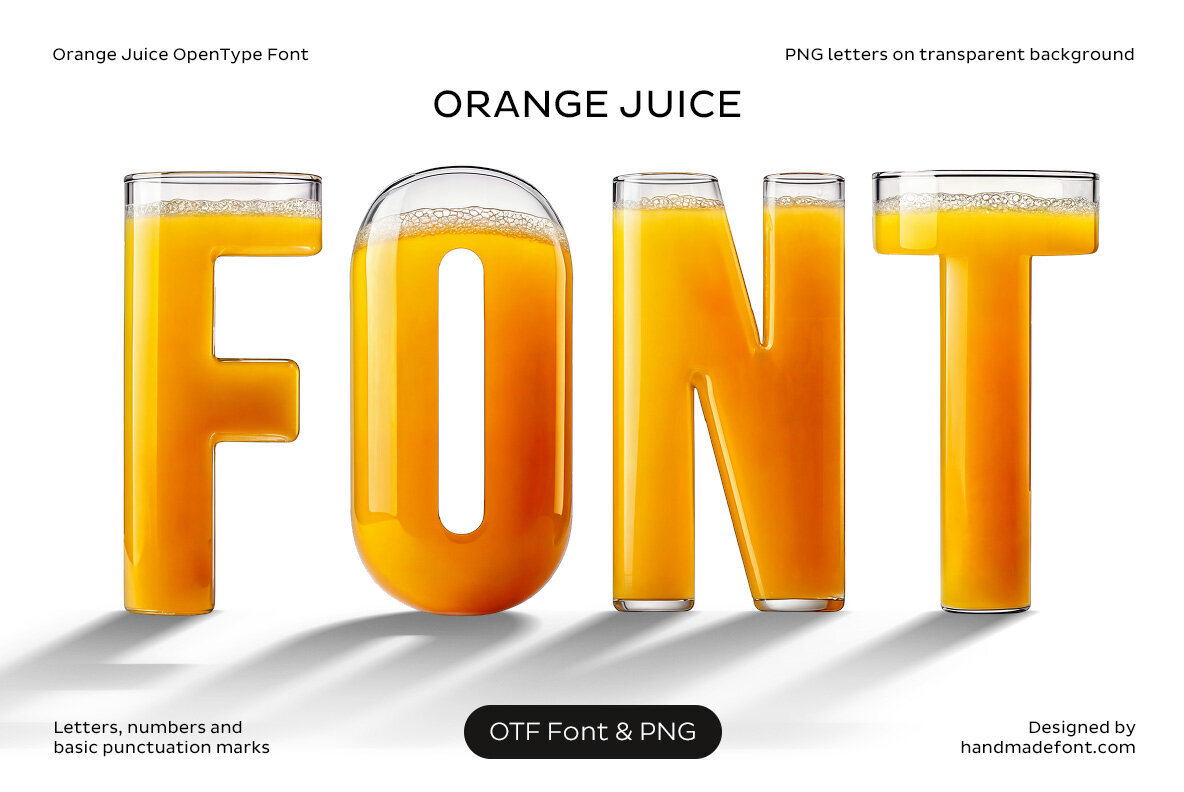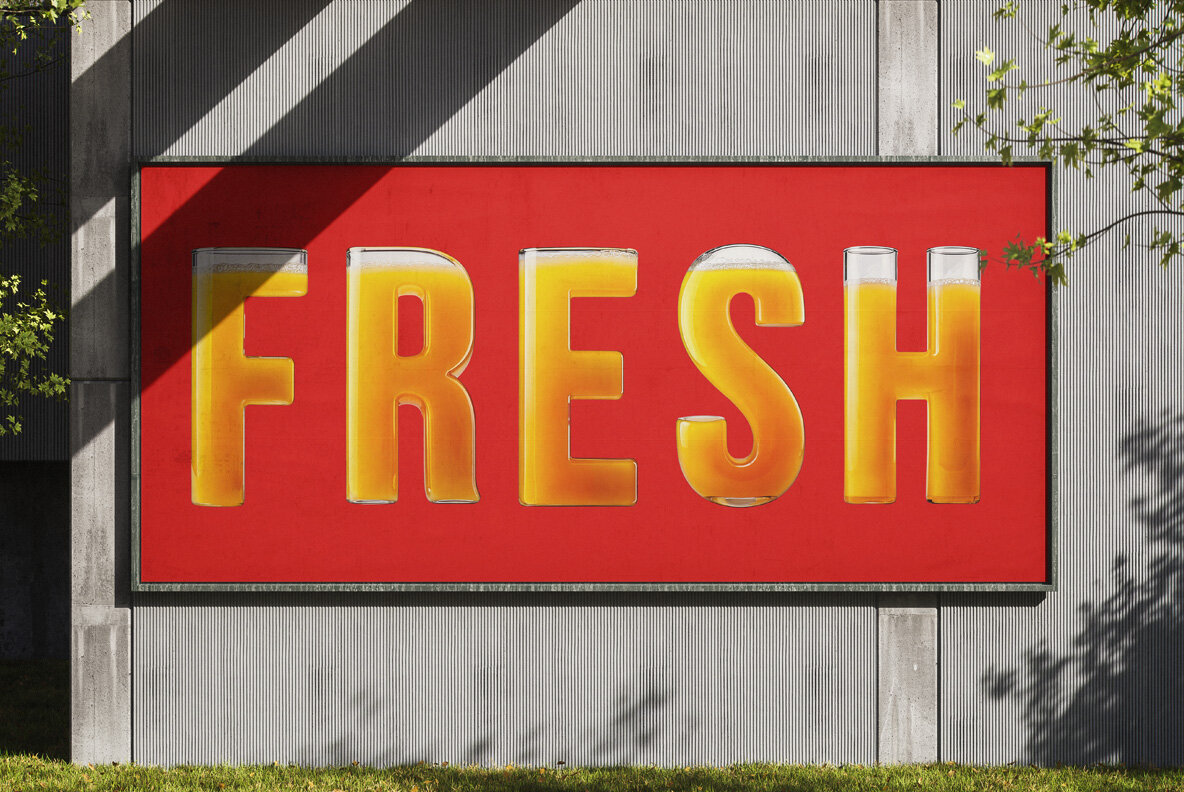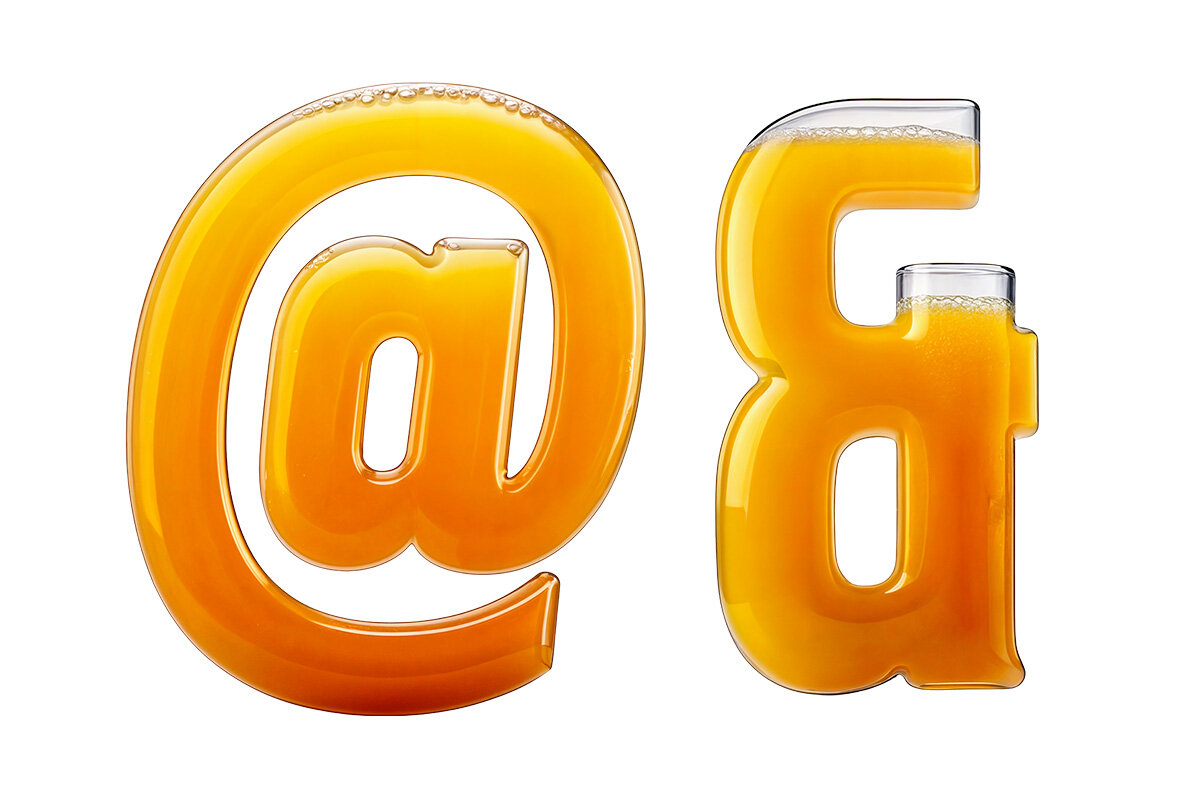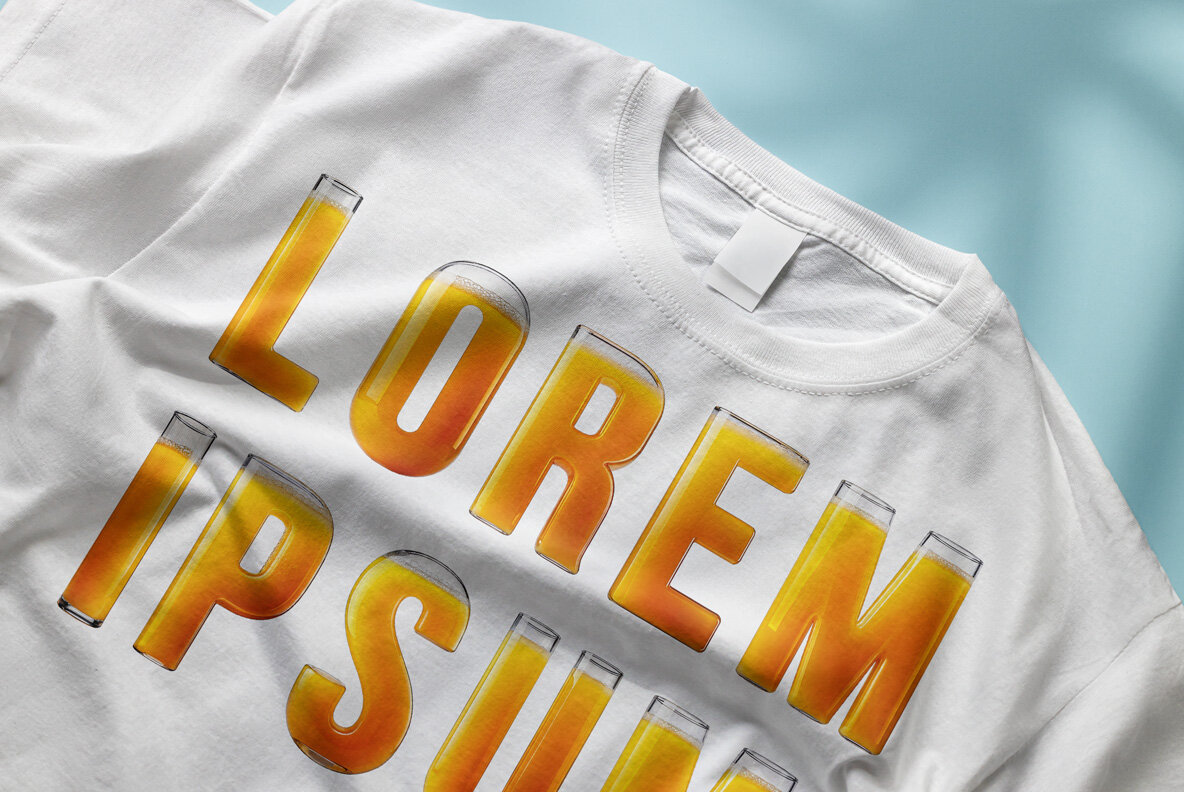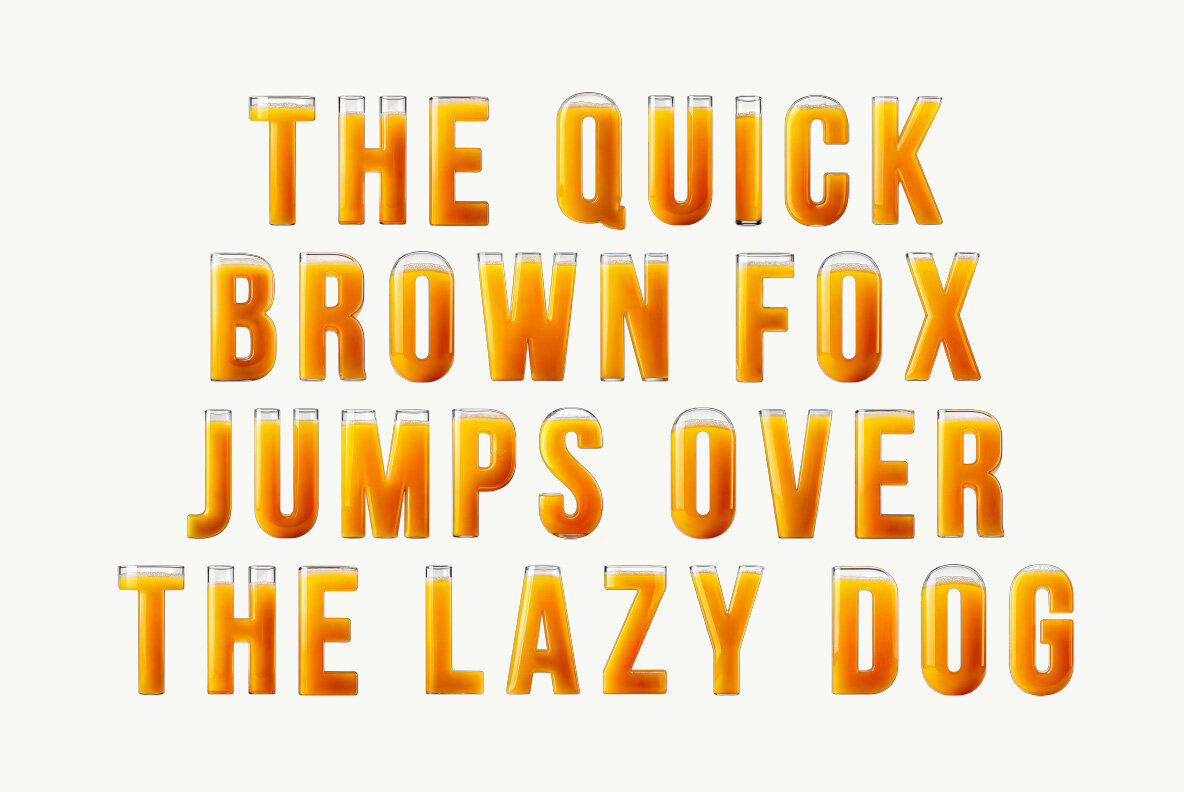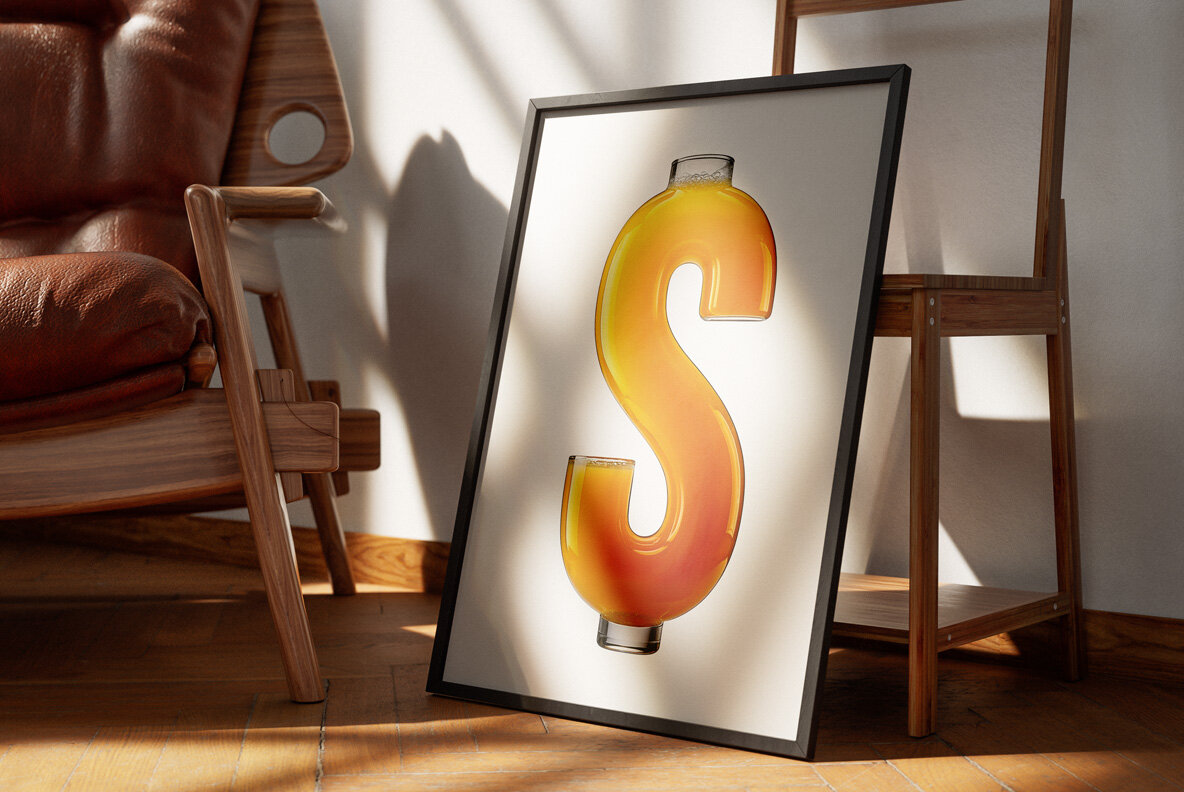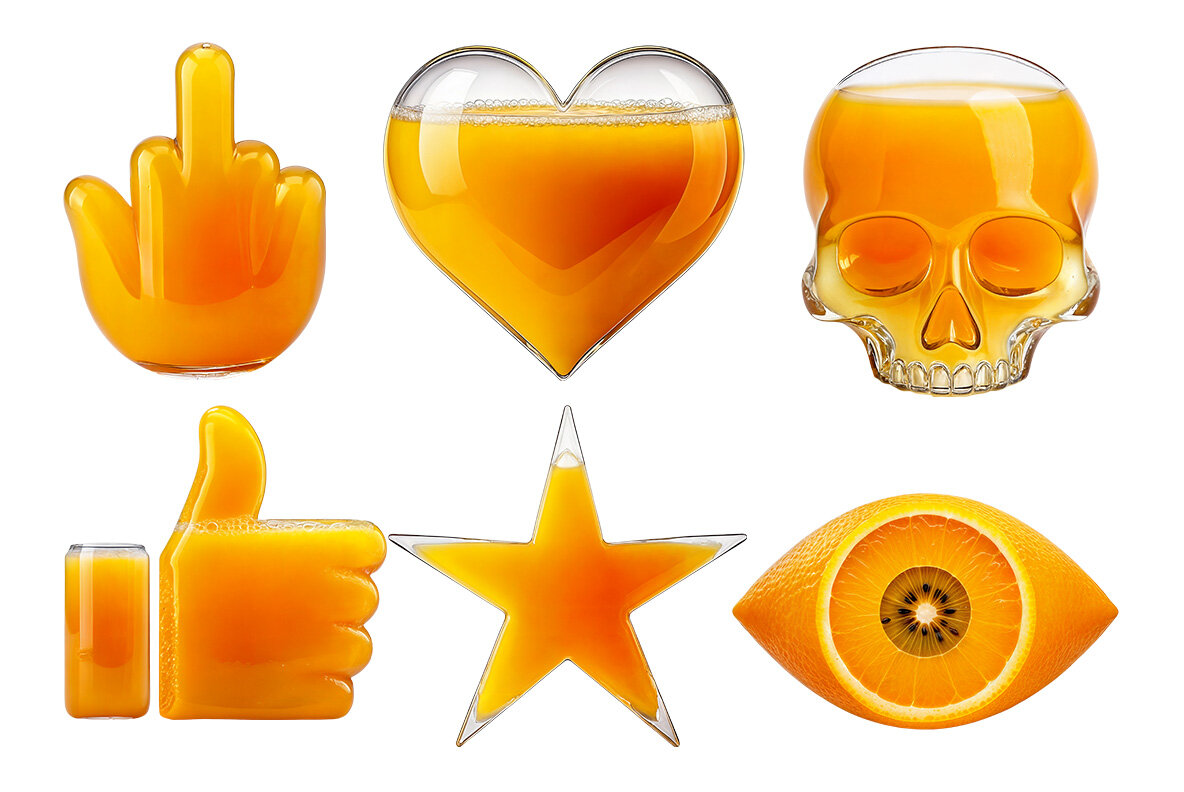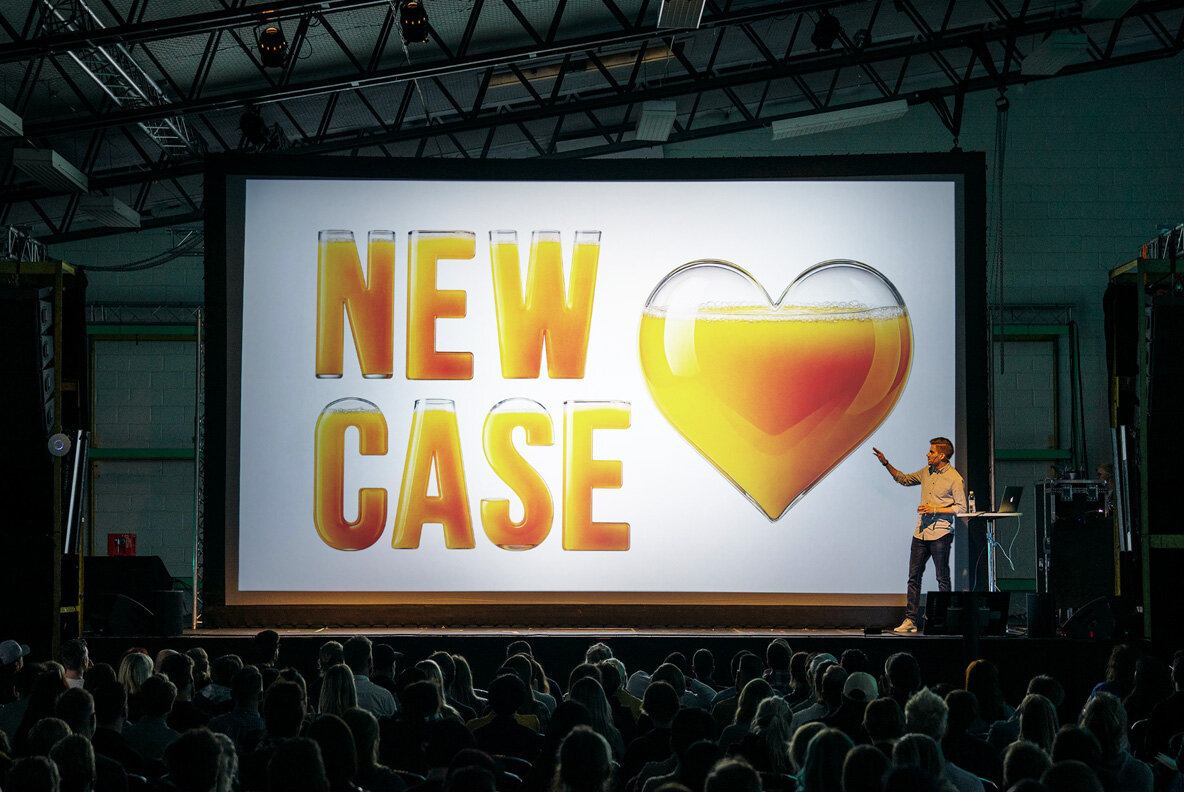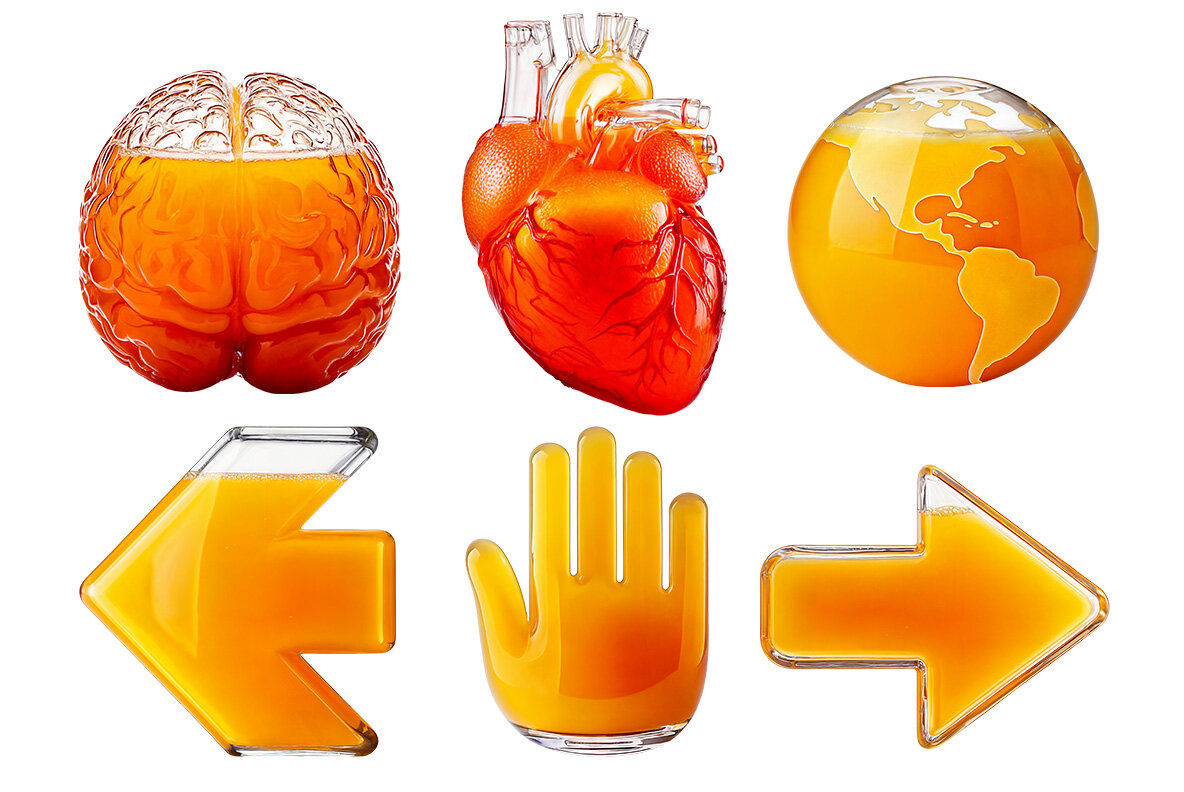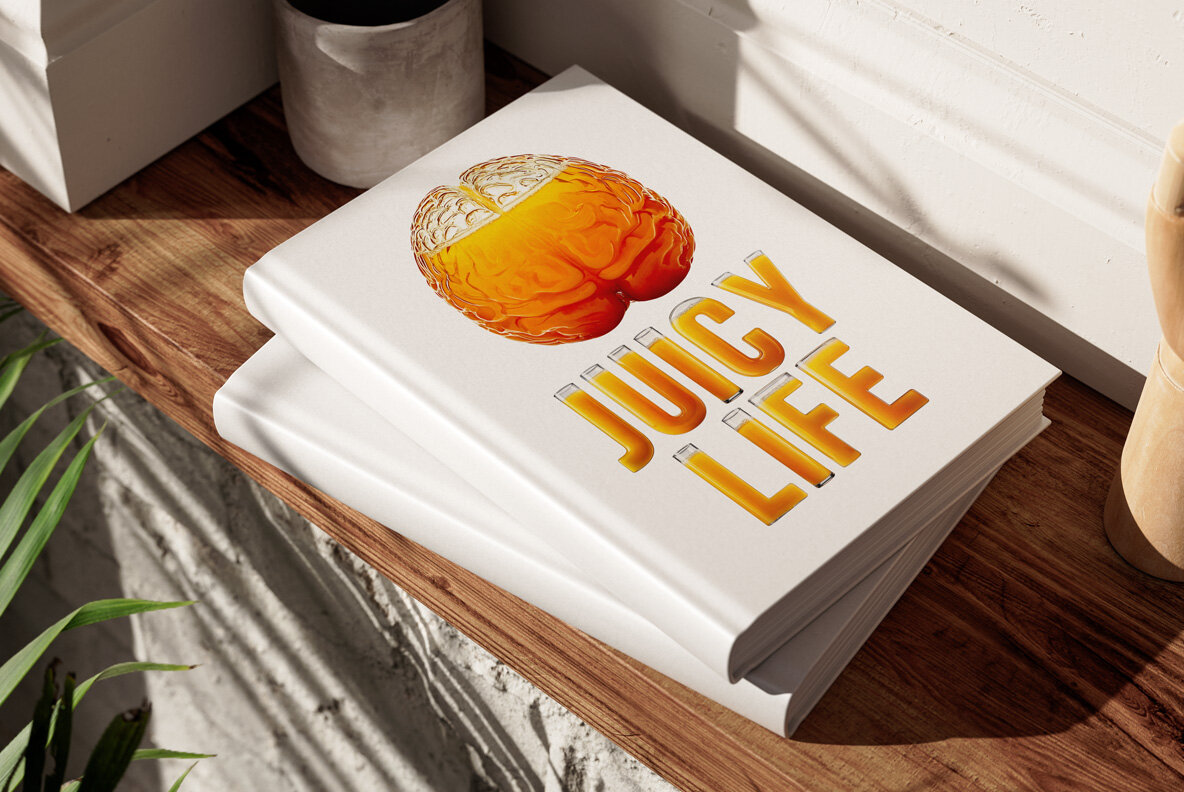
Immerse yourself in the juicy world of the Orange Juice Font, where every letter feels like a refreshing sip of freshly squeezed delight. Each character is crafted from glossy, transparent glass, filled with luscious golden orange juice and topped with a zesty citrus froth. This playful and realistic typeface embodies the essence of breakfast in font form, making it ideal for food branding, drink packaging, or vibrant summer campaigns. Not just a typeface—it’s a juicy experience that infuses your message with sunshine. Experience the creative twist of the Orange Juice Font in your next project and watch your designs come alive with effervescent charm.Orange Juice Font: A Delicious Typeface